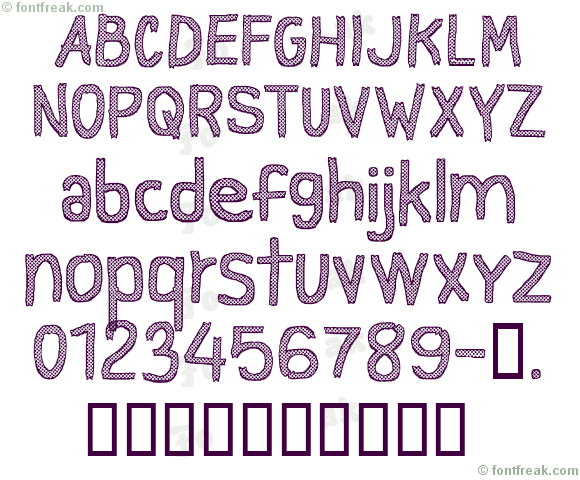
CF Gray Texture Regular
CF Gray Texture Regular, crafted by Cloutierfontes, is a distinctive decorative font that brings a unique flair to any design project. This font falls into the category of display typefaces, characterized by its textured and layered appearance. The visual characteristics of CF Gray Texture Regular include a medium stroke weight with a subtle contrast that adds depth without overwhelming the viewer. The spacing is thoughtfully designed to maintain legibility while enhancing the textured effect, making it suitable for various applications.
This font excels in specific use cases, including wedding invitations, where its artistic flair can evoke a sense of celebration and joy. It also works beautifully for movie posters, lending a dramatic touch that captures attention. Restaurant menus can benefit from the font's unique style, creating an inviting atmosphere that encourages diners to explore the offerings. Additionally, it is ideal for branding projects, where small business owners can use it to create a memorable identity that stands out in a crowded marketplace. Content creators will find CF Gray Texture Regular to be a valuable asset in their toolkit, enhancing the aesthetic appeal of their digital and print materials.
The target audience for this font includes graphic designers looking for a creative edge, small business owners aiming to establish a strong brand presence, and content creators who wish to elevate their visual storytelling. CF Gray Texture Regular font free download makes it accessible for anyone seeking to add a touch of originality to their projects. What truly sets this font apart is its ability to blend artistic texture with functionality, offering versatility across a wide range of design applications while maintaining a distinctive character that captures the essence of creativity.